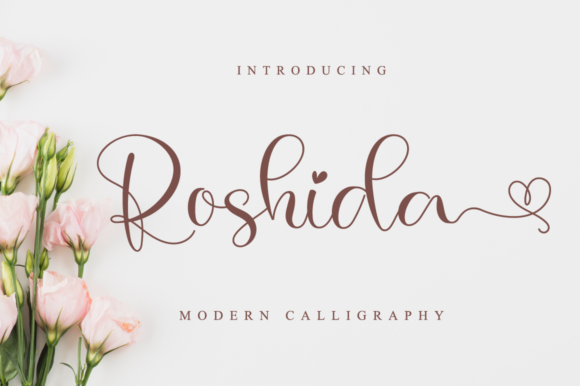
Get ready to fall head over heels for Roshida Font, the epitome of charm and elegance. Crafted by the talented NissaStudio, this enchanting script font is meticulously designed to make your creations irresistible.
Picture the allure of your visiting cards adorned with Roshida's graceful strokes, leaving an unforgettable impression on every recipient. Its captivating curves and swashes will transform your invitations, thank-you notes, and quotes into cherished keepsakes, brimming with a touch of heartfelt emotion.
Logos and business cards infused with Roshida's sophisticated charm will elevate your brand's identity, captivating your audience with its timeless appeal. Let Roshida's versatility unleash your creativity, adding a touch of handwritten magic to greeting cards, posters, and any design yearning for a personal touch.
With Roshida Font's user-friendly PUA encoding, you'll effortlessly access its entire repertoire of glyphs and swashes, empowering you to effortlessly craft stunning masterpieces. Immerse yourself in the world of Roshida Font and experience the joy of creating designs that resonate with your unique style and leave a lasting impact on all who behold them.